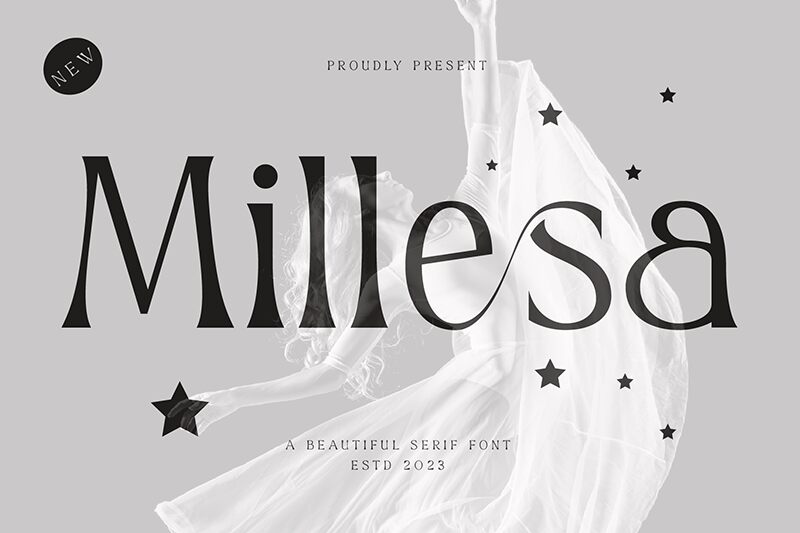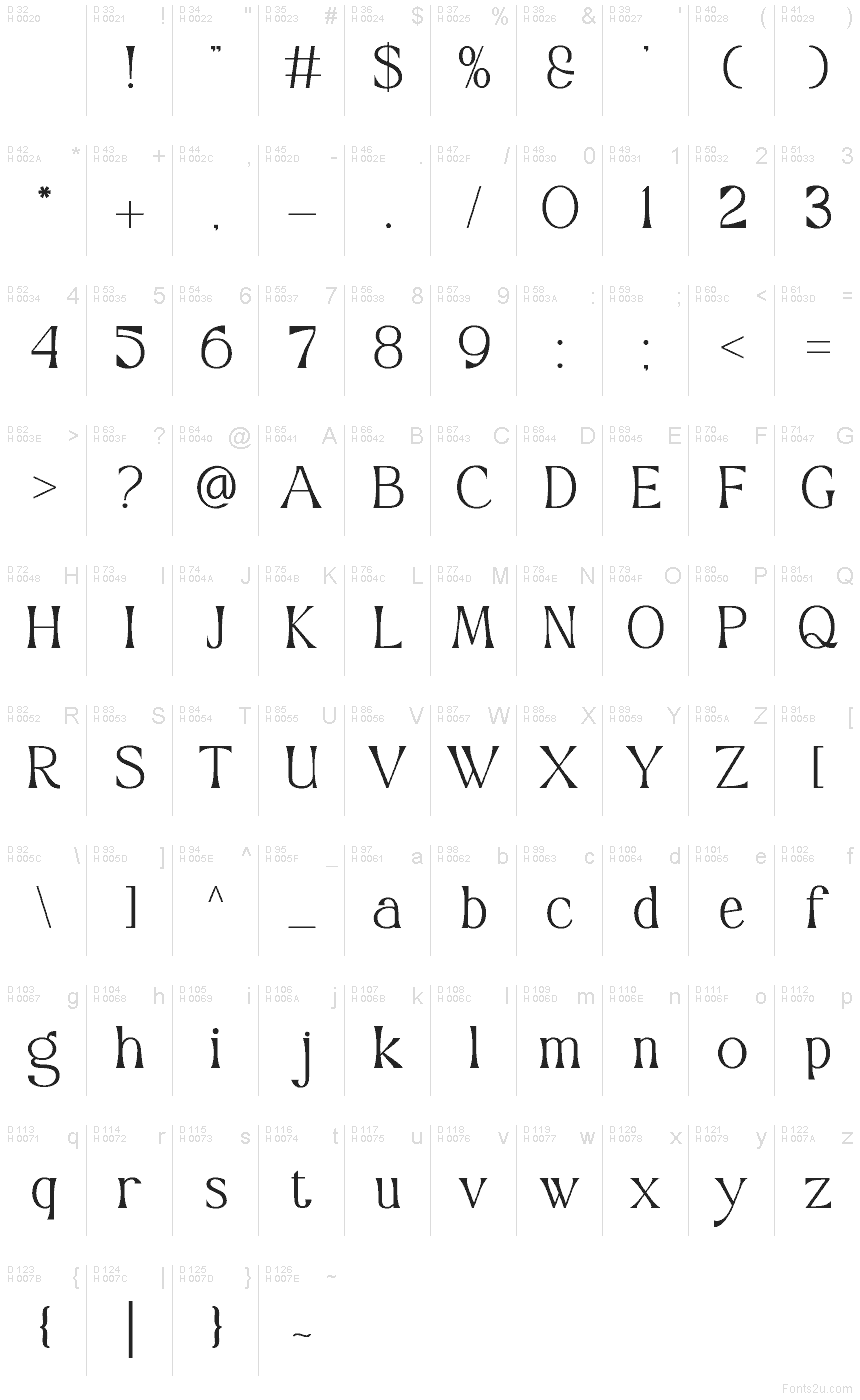
Millesa
Millesa font by Muflieart is a free retro serif typeface with swooping curves and bold-to-fine transitions that feel hand-inked. Its tall, tapering strokes and flared edges carve out a lush rhythm, giving headlines a glamorous, slightly mysterious pull. Letters look sculpted rather than drawn, with bowls that swell and narrow like a vintage poster title caught in warm studio light.
Using Millesa, you get instant throwback charisma without fuss. It shines on boutique branding, editorial mastheads, wine or perfume labels, event posters, record covers, and café menus. The spacing invites generous tracking for airy drama; tighten it for a denser, cinematic mood. Pair this free font with a plain, modern sans to keep the spotlight on its curves and keep layouts readable.